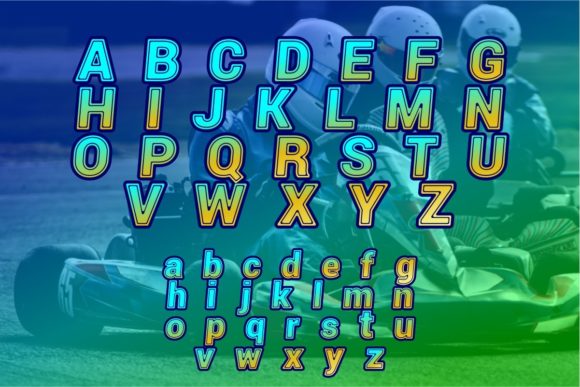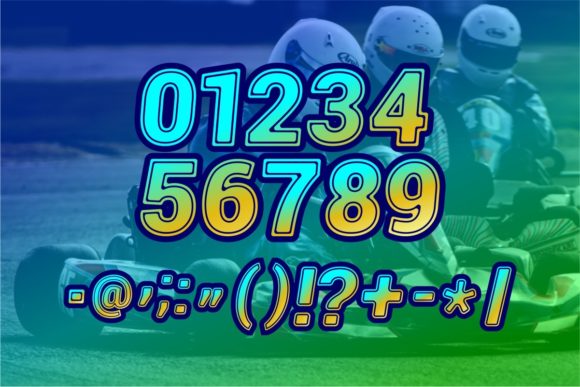
Introduction to Racer Facer Font
If you are looking for a racing-themed font, look no further.
This display font would be perfect for any project that needs a racecar or racing theme It is easy to use and would work well in games, posters, logos, or any design that needs to convey speed.
Key Features of Racer Facer Font
Why Choose Racer Facer Font?
Racer Facer Font offers exceptional quality and versatility, making it a valuable addition to your design toolkit. Whether you’re creating for personal projects or commercial use, Racer Facer Font delivers professional results.